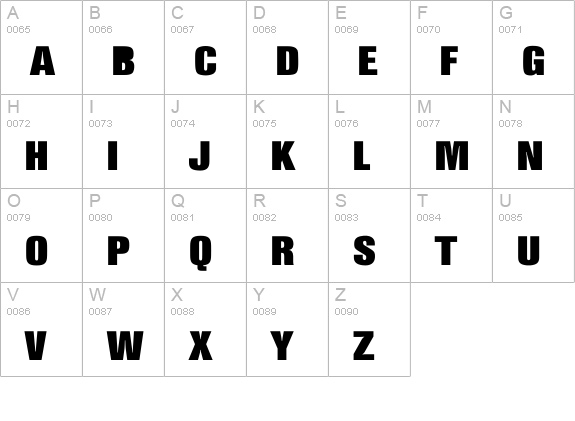
Colympia Heavy is a heavy, high-impact variant in the Colympia typeface family \xE2\x80\x94 well suited to high-impact headlines, posters, and display advertising.
Colympia Heavy is a bold and robust typeface that exudes strength and authority. Its thick strokes and sharp edges give it a commanding presence, making it perfect for headers, titles, and branding projects that require a bold statement. This versatile font is designed to make a bold impact while maintaining readability, making it a great choice for a wide range of design applications. Whether you're creating posters, logos, or packaging, Colympia Heavy will help your message stand out. Best of all, Colympia Heavy is available for free download at FontsMarket.com. So why wait? Elevate your designs with this powerful font today.